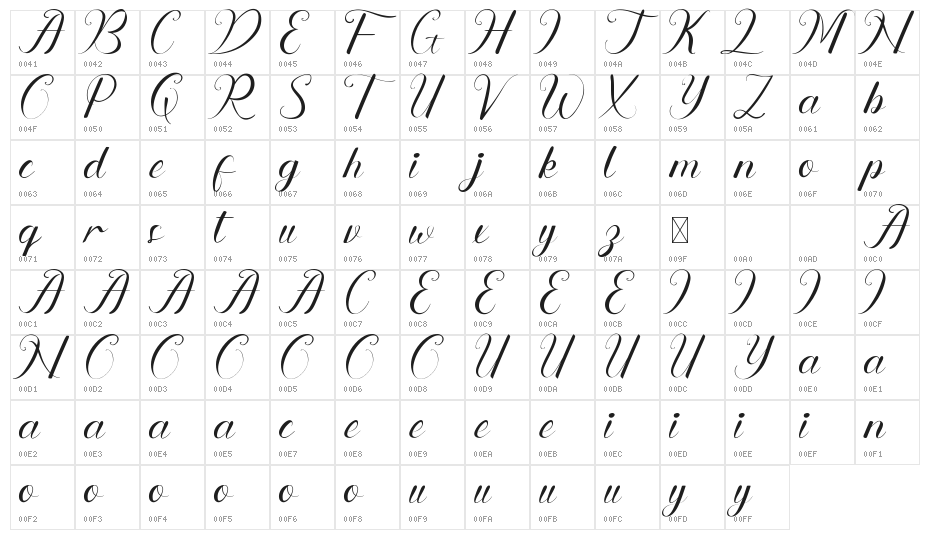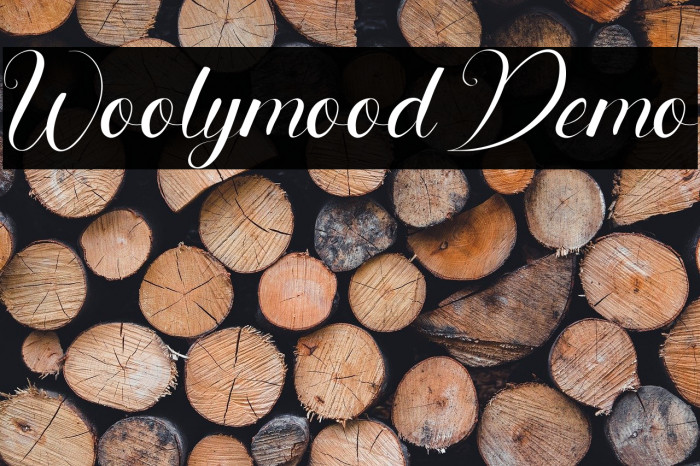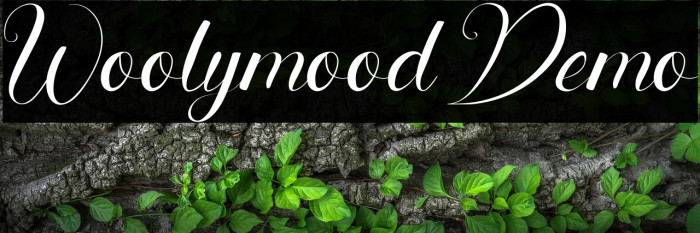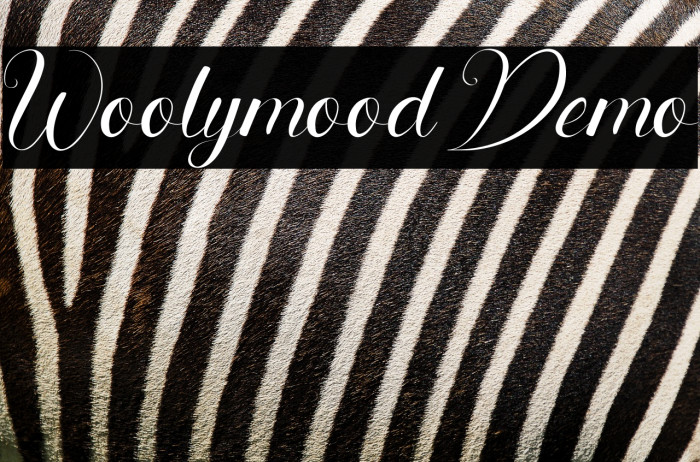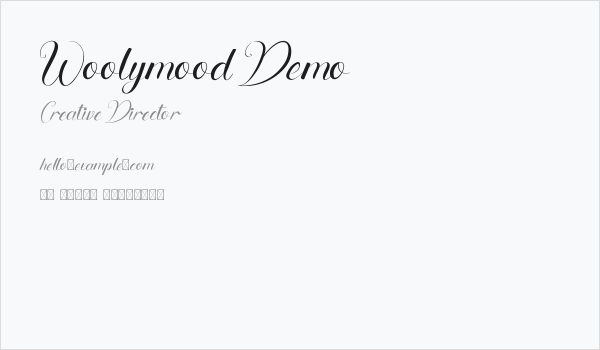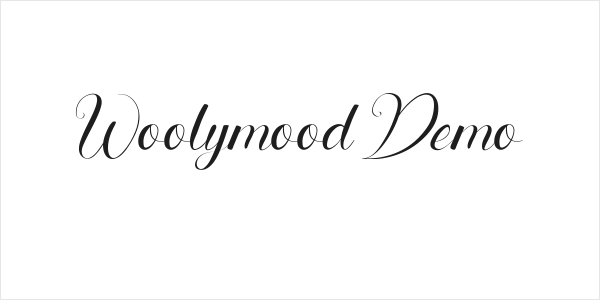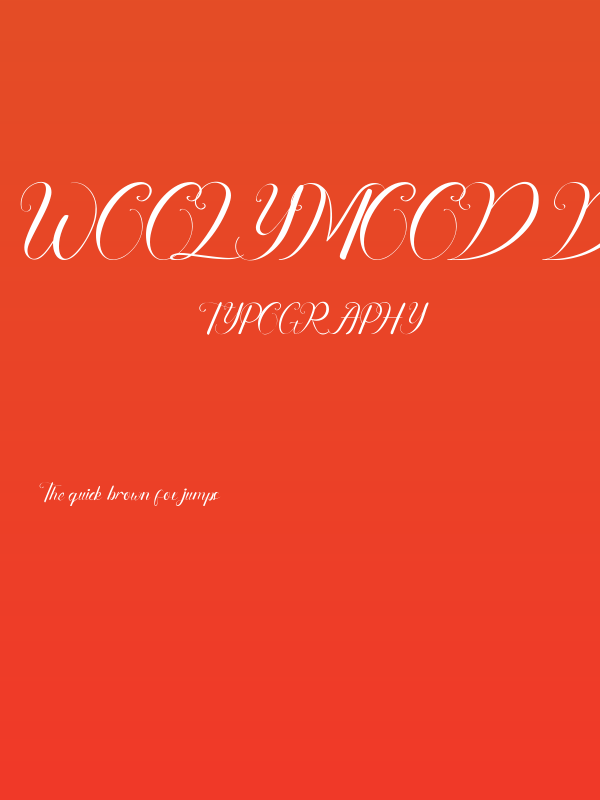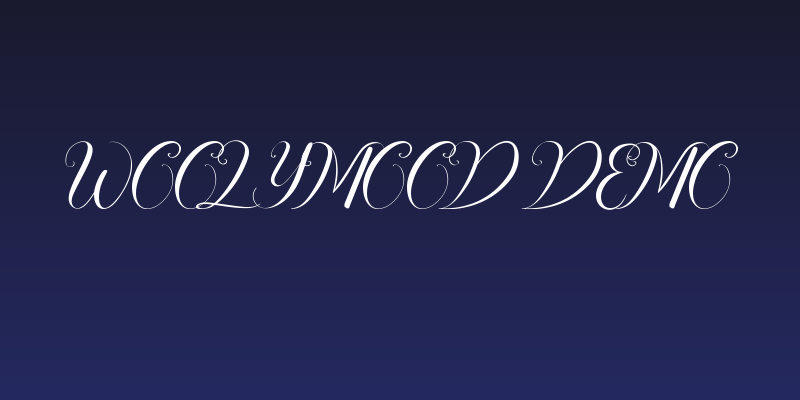
Woolymood Demo Font
Woolymood Demo Description
This font exudes elegance and sophistication with its flowing, cursive style. The letters are intricately designed with delicate loops and flourishes, creating a sense of movement and grace. The uppercase letters are particularly ornate, featuring extended strokes and decorative swirls that enhance their visual appeal. The lowercase letters maintain a consistent style, with smooth curves and a slightly slanted orientation that adds to the overall fluidity of the design. The font's thin strokes contrast beautifully with occasional thicker lines, adding depth and dimension. This script style is perfect for projects that require a touch of elegance and refinement.
| Use Case | Logos, Invitations, Decorative headlines |
| Proposed Projects | Ideal for wedding invitations, elegant branding, luxury product packaging, and decorative headlines. |